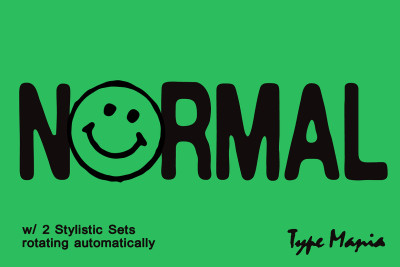
Normal TM – Gently Handled Grotesk Font
Normal TM – Gently Handled Grotesk offers a fresh typographic approach that balances visual appeal with exceptional legibility.